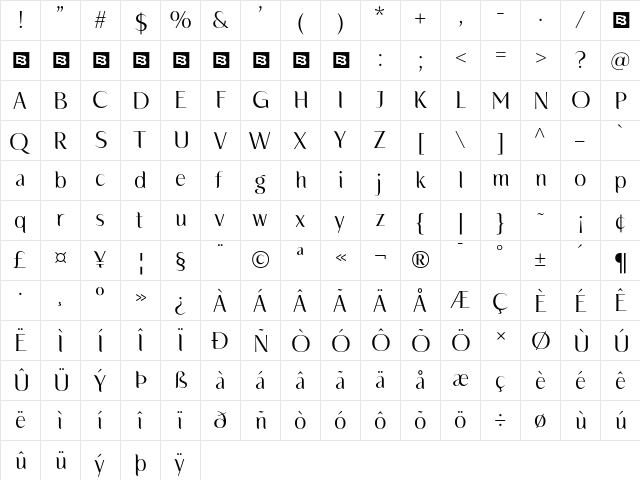
Florania Trial Regular
| Designer | Eko Bimantara |
Design Context for Florania Trial Typeface
Florania Trial is a composed and adaptable typeface that performs quietly and consistently across a wide range of design contexts.